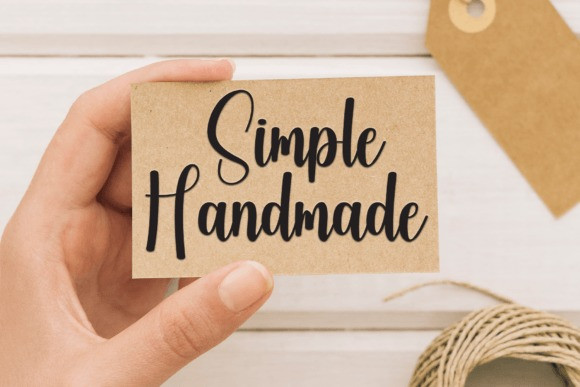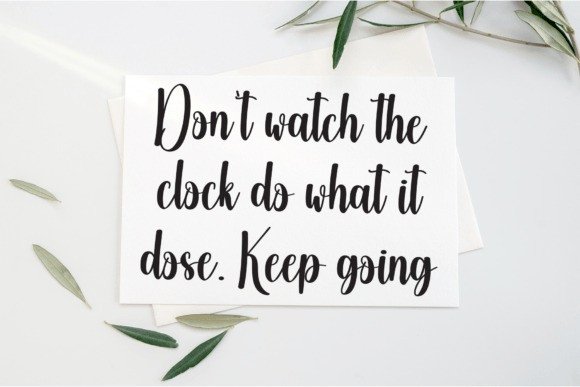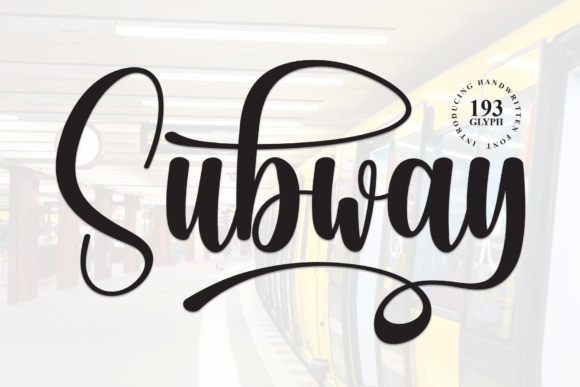
Subway Script Font
Subway Script Font is a delightful handwritten font that captures the spontaneity of pen on paper. With its casual charm and smooth strokes, Subway adds a touch of personal flair to your projects. Perfect for conveying a friendly and approachable vibe, this font is an excellent choice for various creative endeavors. Whether you’re designing invitations, cards, or social media graphics, Subway effortlessly brings a handwritten warmth to your text, making it both engaging and relatable.